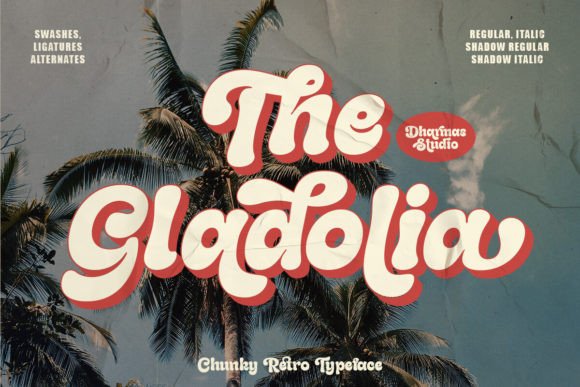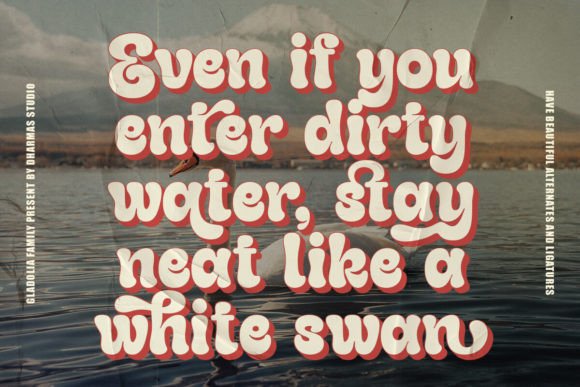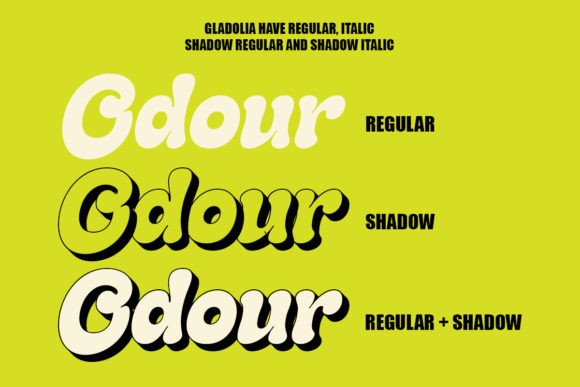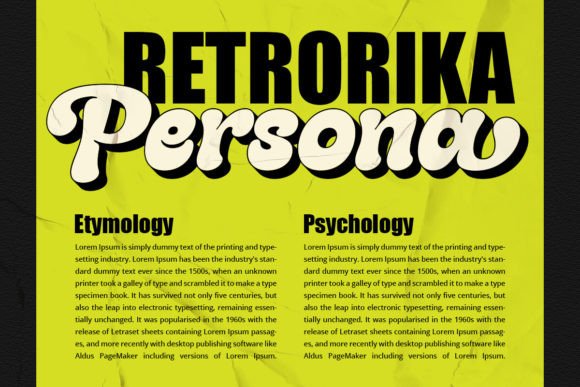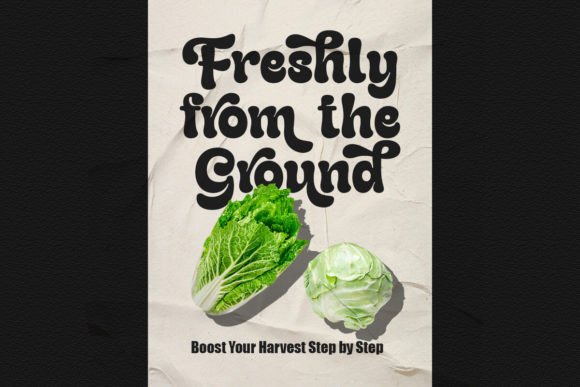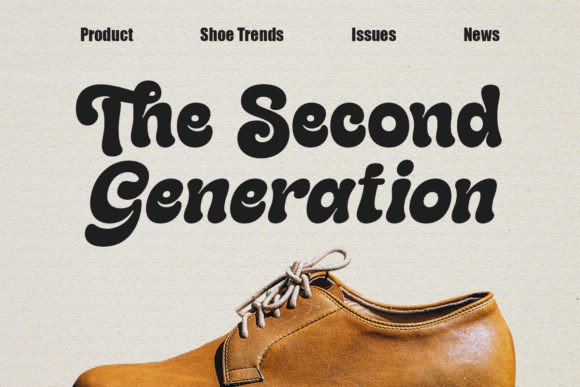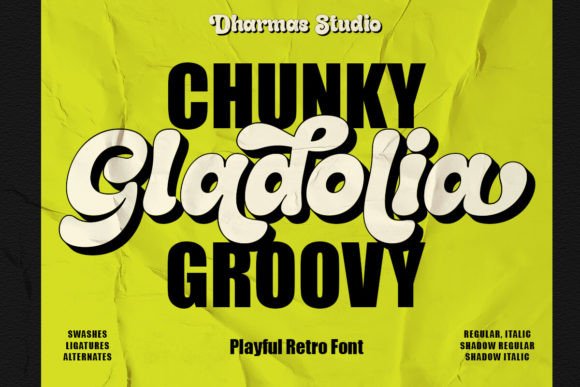
Introducing Gladolia Font: The Ultimate Retro Typeface for Bold Designs
Are you tired of using the same old fonts in your designs? Do you want to add a touch of retro flair to your projects? Look no further than Gladolia Font, a chunky typeface with a unique retro style that’s sure to make your designs stand out. With its bold and eye-catching design, Gladolia is perfect for designers and crafters who want to add a cool and groovy vibe to their work.
What is Gladolia Font?
Gladolia Font is a carefully crafted typeface that features a distinctive retro style, reminiscent of the iconic fonts of the 1980s. With its chunky and bold design, Gladolia is perfect for creating eye-catching headlines, logos, and quotes that demand attention. The font comes in two different styles: regular and oblique, giving you flexibility and versatility in your designs.
Key Features of Gladolia Font
- 2 Different Style Fonts: Gladolia Font comes in two different styles: regular and oblique, allowing you to experiment with different looks and feels in your designs.
- Extruded Font Version: Each style comes with an extra extruded font version, adding an extra dimension to your designs and giving you even more creative possibilities.
- Retro 80s Theme: Gladolia Font is perfect for creating designs with a retro 80s theme, evoking the iconic styles of the decade.
- Multi-Purpose: Use Gladolia Font for a variety of design projects, including cover magazines, brochures, logos, headlines, quotes, and short paragraphs or content.
Why Choose Gladolia Font?
Gladolia Font is more than just a typeface – it’s a design statement. With its dynamic and authoritative style, Gladolia is perfect for any display project that demands attention. Here are just a few reasons why you should choose Gladolia Font for your next design project:
- Easily Create Eye-Catching Designs: With Gladolia Font, you can create bold and eye-catching designs without any extra effort. The font’s chunky design and unique retro style ensure that your designs will stand out from the crowd.
- Perfect for Retro-Themed Designs: If you’re looking to create designs with a retro 80s theme, Gladolia Font is the perfect choice. The font’s retro style is reminiscent of the iconic fonts of the decade, making it perfect for creating designs that evoke a sense of nostalgia.
- Flexible and Versatile: Gladolia Font comes in two different styles, plus an extruded font version for each style. This gives you the flexibility and versatility to experiment with different looks and feels in your designs.
How to Use Gladolia Font
Gladolia Font is easy to use and can be incorporated into a variety of design projects. Here are just a few ideas to get you started:
- Cover Magazines: Use Gladolia Font to create bold and eye-catching headlines for your magazine covers.
- Brochures: Add a touch of retro flair to your brochures with Gladolia Font.
- Logos: Create a lasting impression with a logo designed using Gladolia Font.
- Headlines: Use Gladolia Font to create bold and attention-grabbing headlines for your website or social media channels.
- Quotes: Add a touch of style to your quotes with Gladolia Font.
In conclusion, Gladolia Font is a unique and versatile typeface that’s perfect for designers and crafters who want to add a touch of retro flair to their designs. With its bold and eye-catching design, Gladolia is sure to make your designs stand out from the crowd. So why wait? Elevate your designs with the cool and groovy vibes of Gladolia Font today!